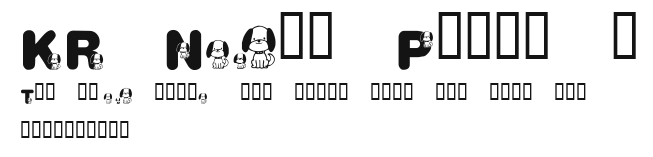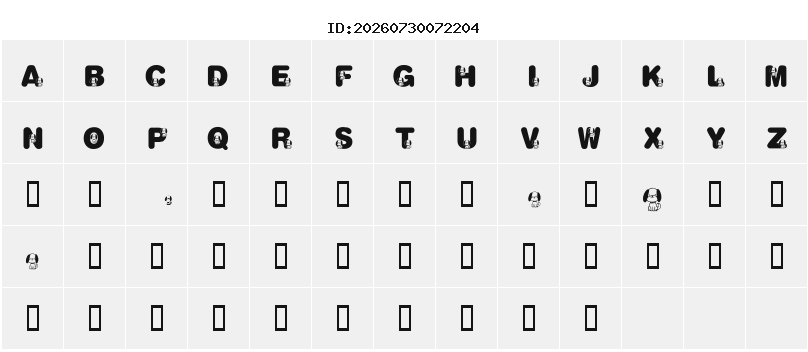
KR Nick's Puppy 1 Preview
• Font Name: KR Nick's Puppy 1
• Full Font Name: KR Nick's Puppy 1
About KR Nick's Puppy 1.ttf
KR Nick's Puppy 1.ttf is a modern, elegant sans-serif font designed for ultimate readability and visual harmony. Perfect for branding, headlines, web design, and print materials.